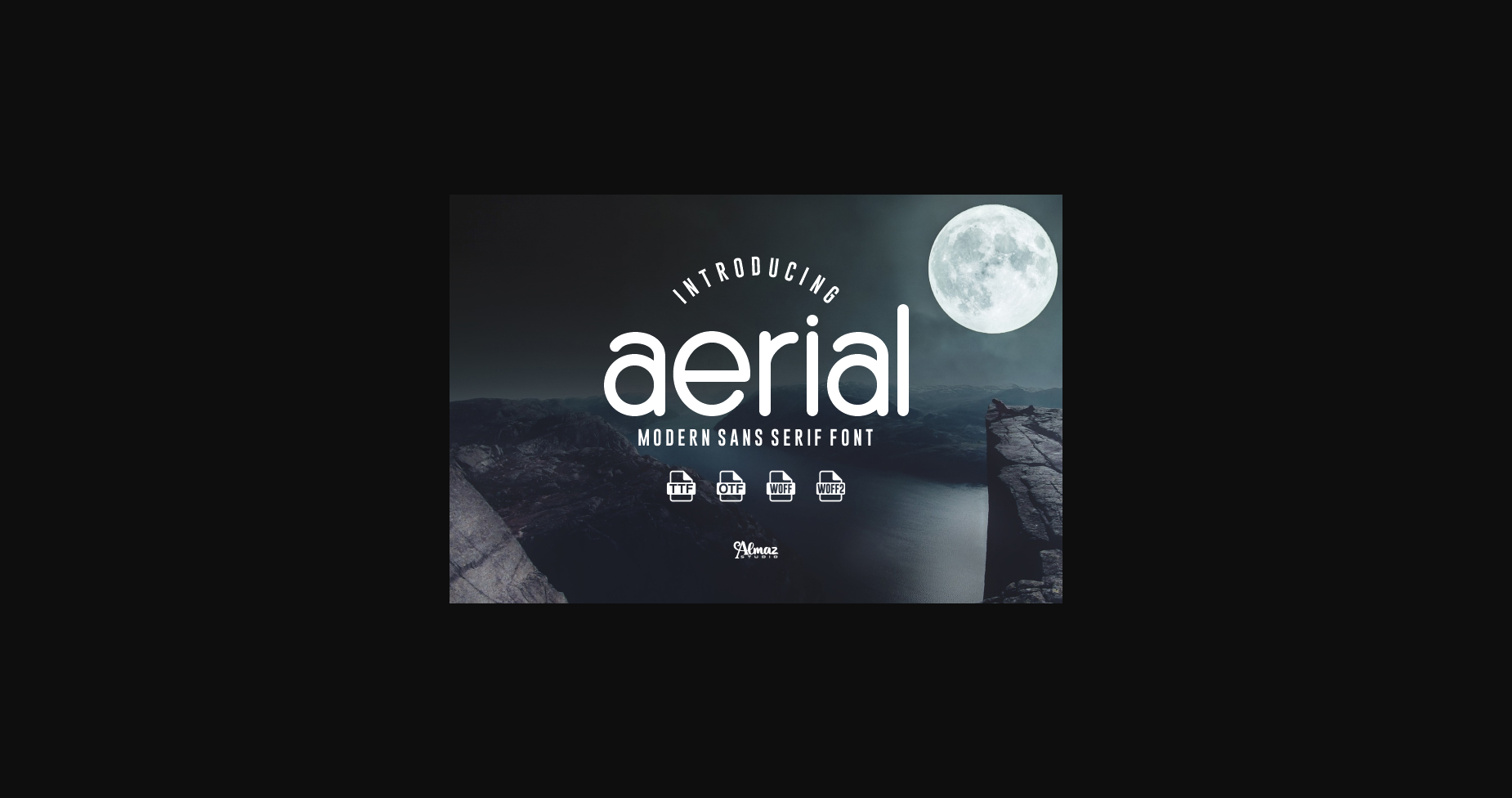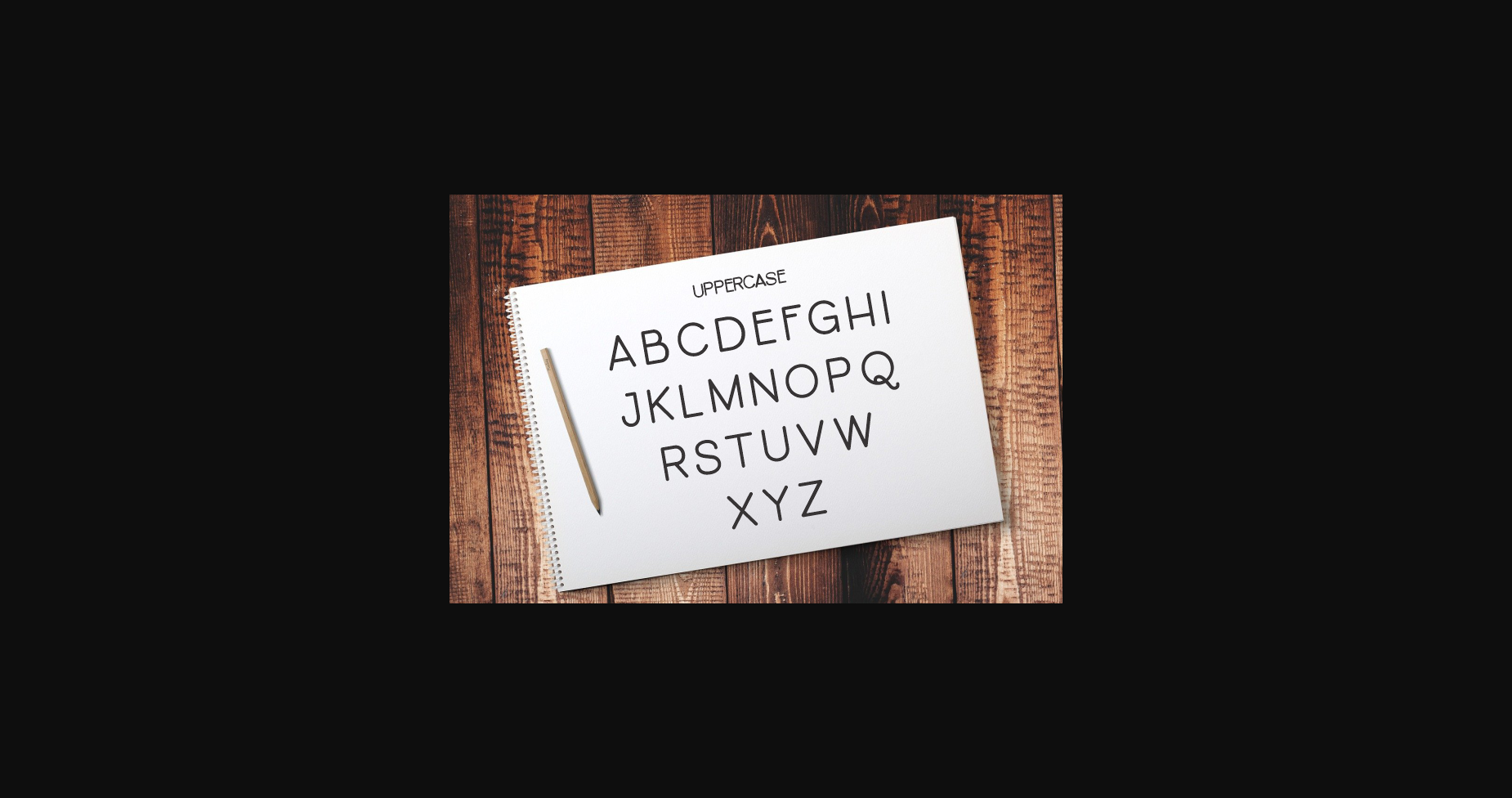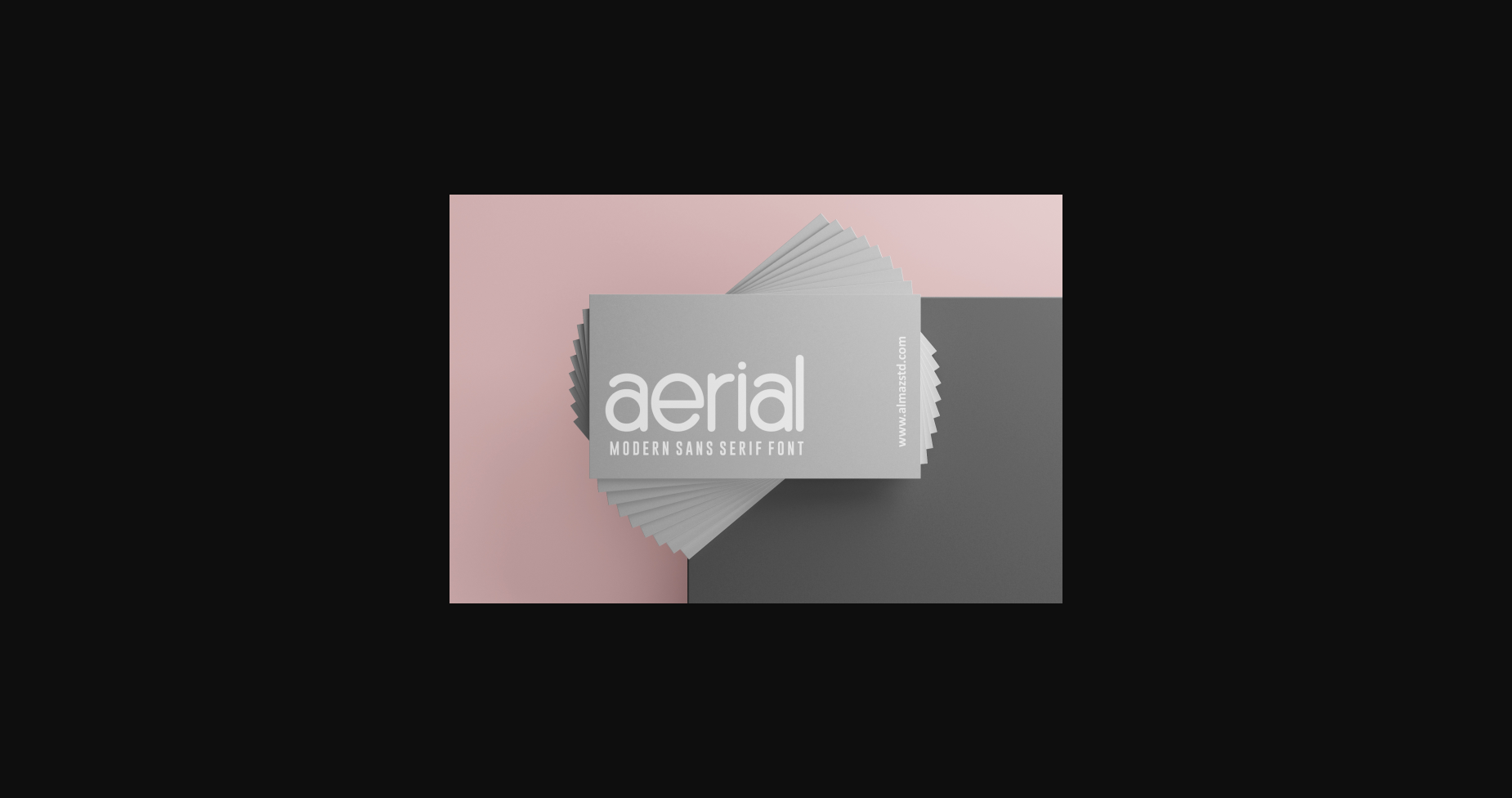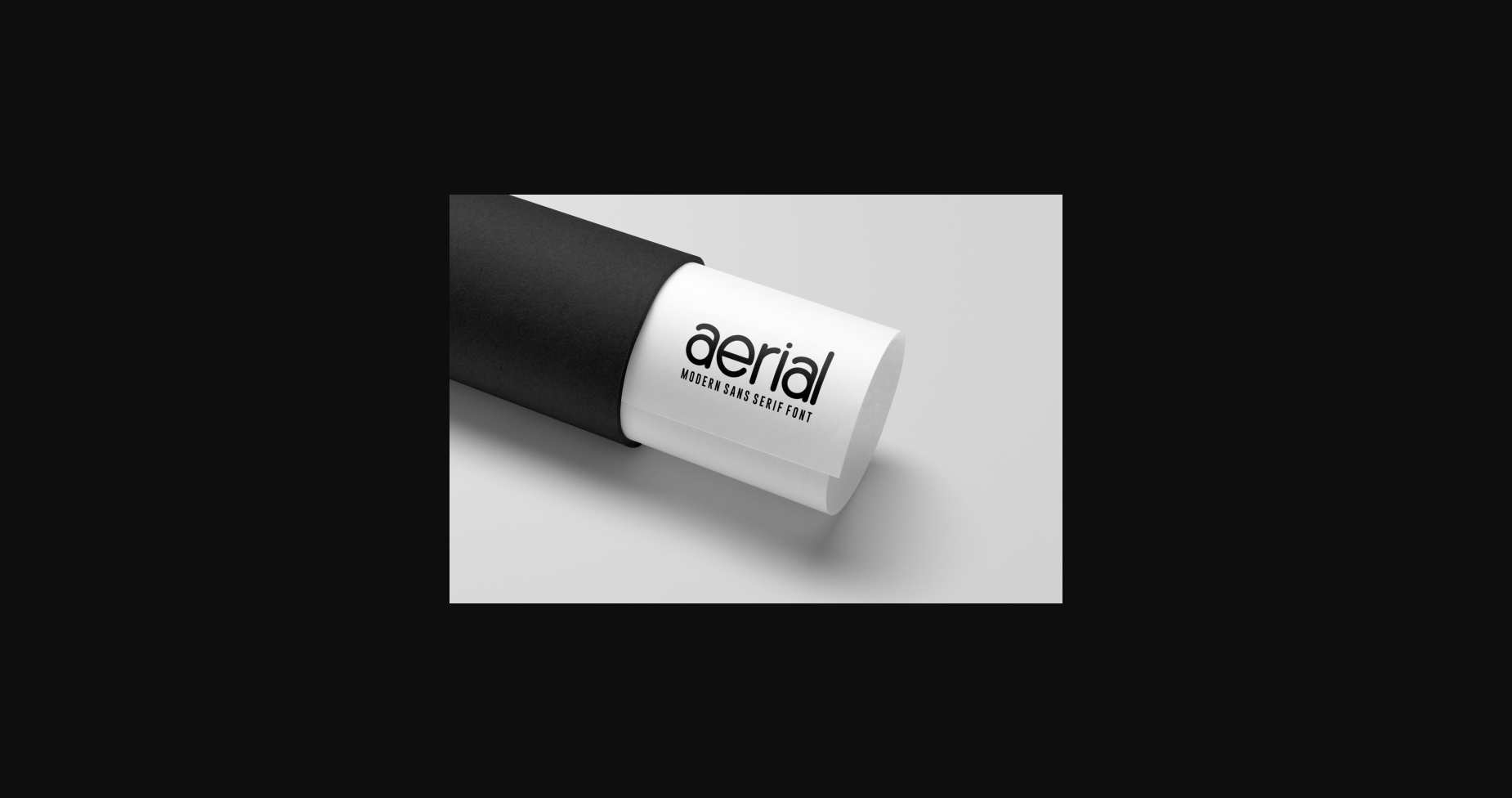
About Aerial Font
Aerial is a clean and modern sans serif font. No matter the topic, this font will be an incredible asset to your fonts’ library, as it has the potential to elevate any creation.